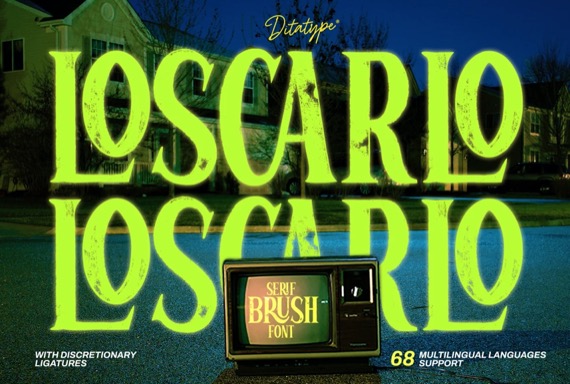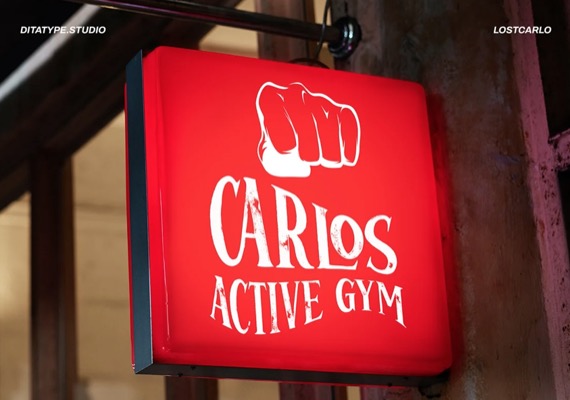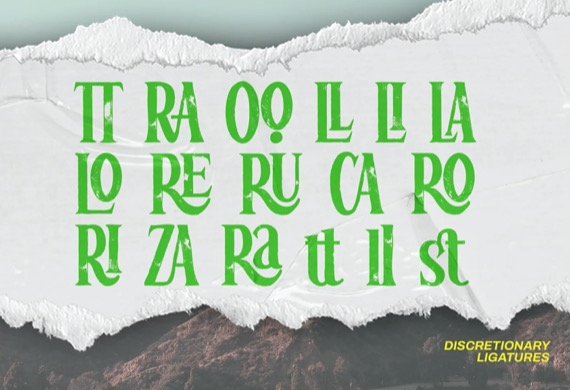
Loscarlo Font from Ditatype is a classy and cool serif typeface that seamlessly merges the timeless elegance of serif typography with the organic charm of brush details. The characters in Loscarlo showcase the classic structure of serifs, offering a sense of tradition and readability. What makes this font unique is the thoughtfully incorporated brush details, which add a dynamic and handcrafted quality to the letterforms. The result is a harmonious balance between refined aesthetics and a hint of expressive creativity. Enjoy the features here.
Loscarlo Vintage Serif Font